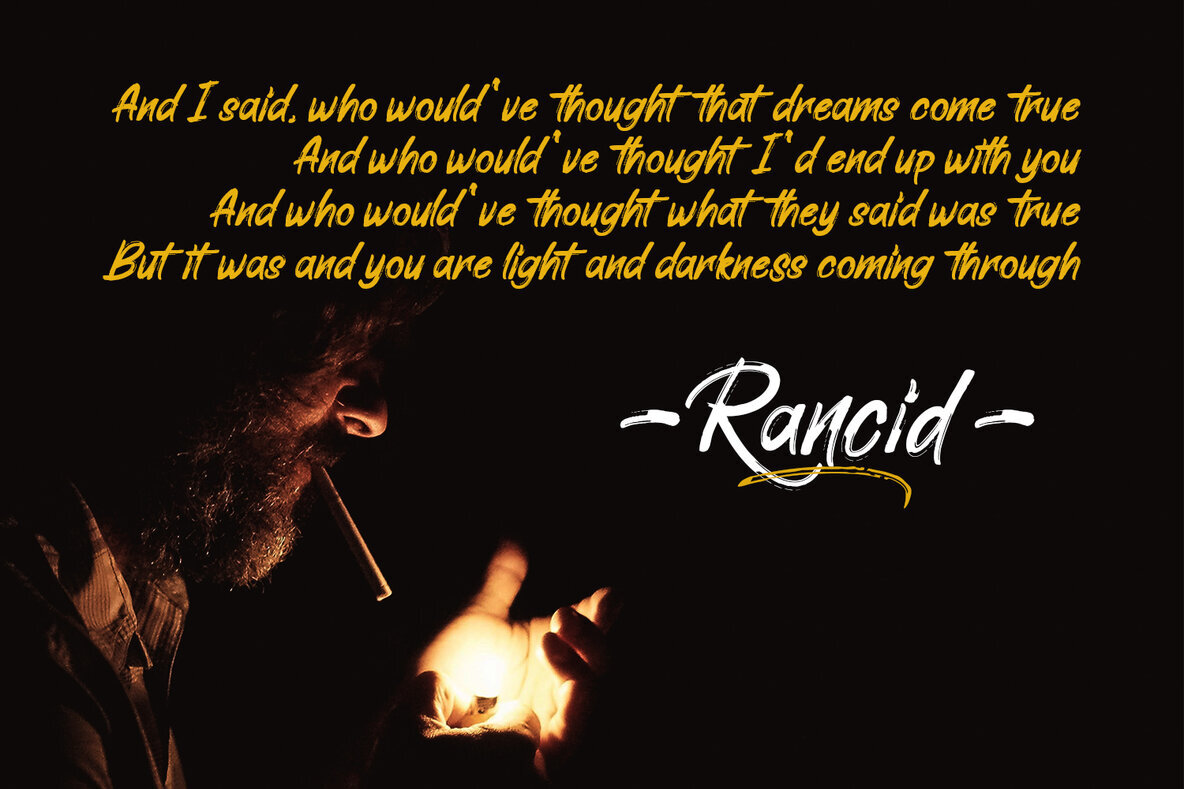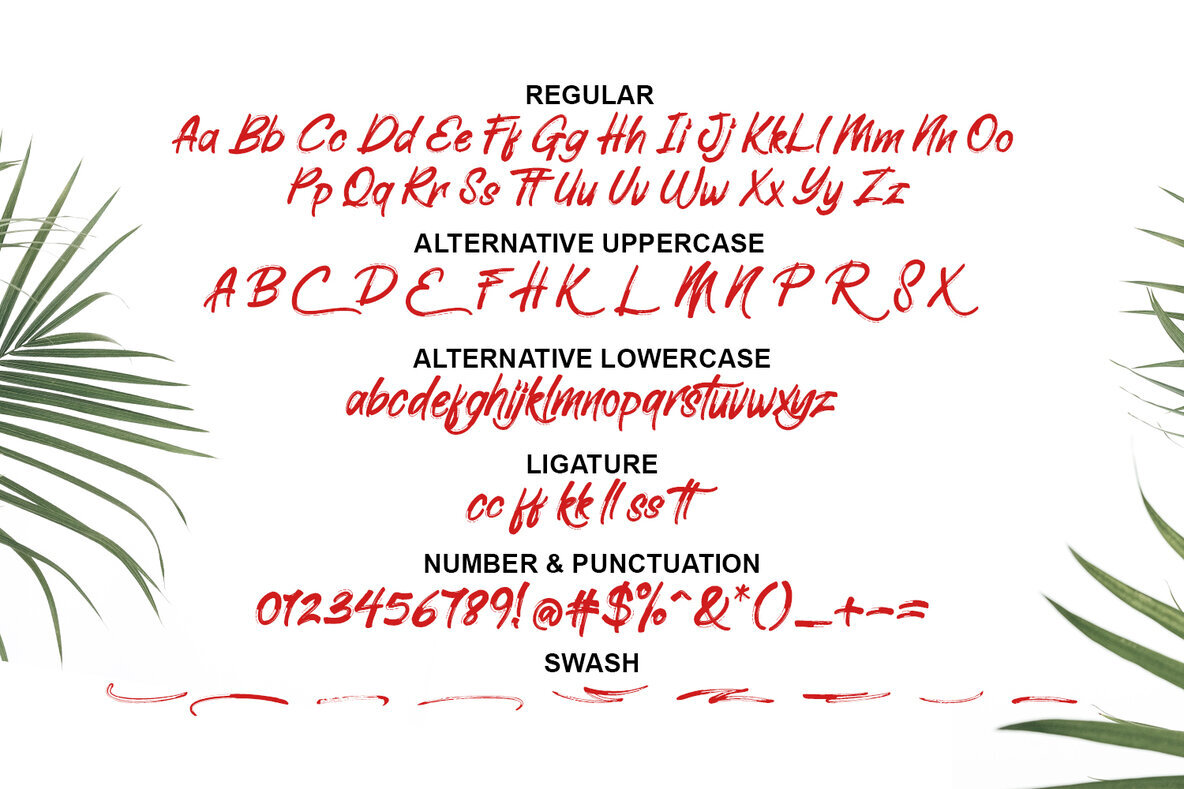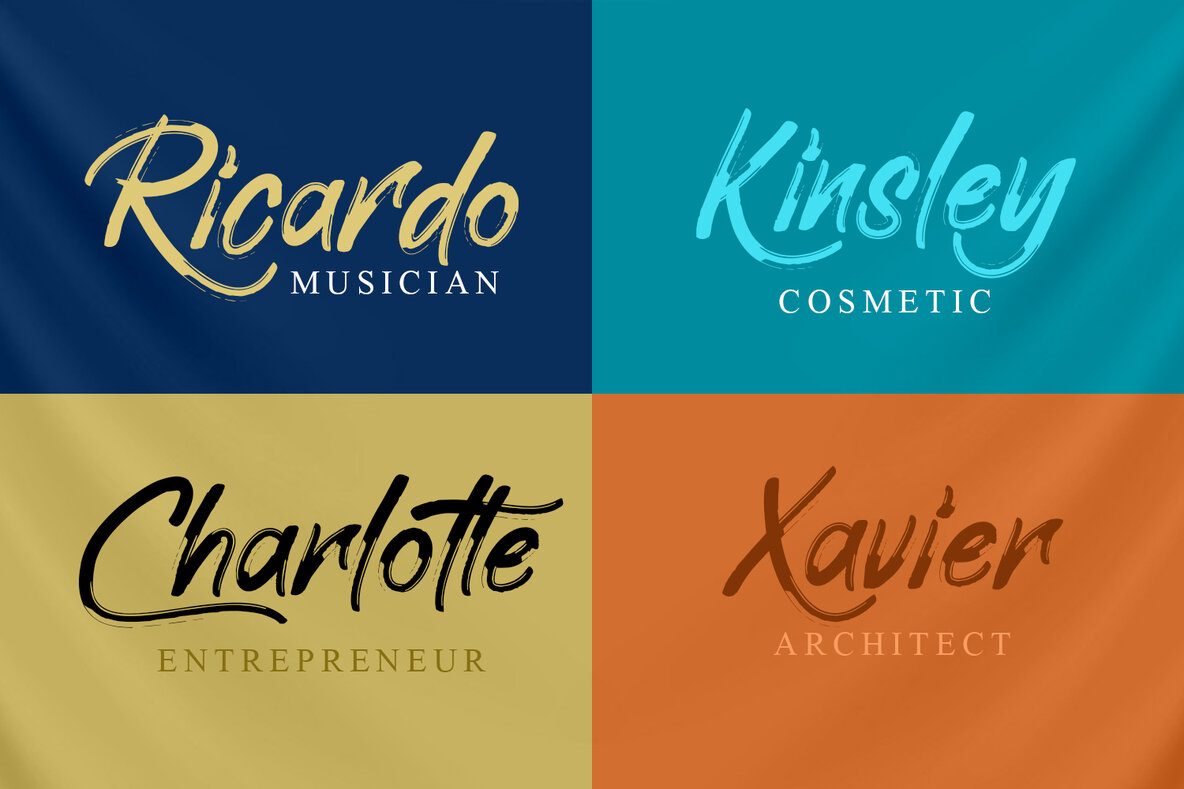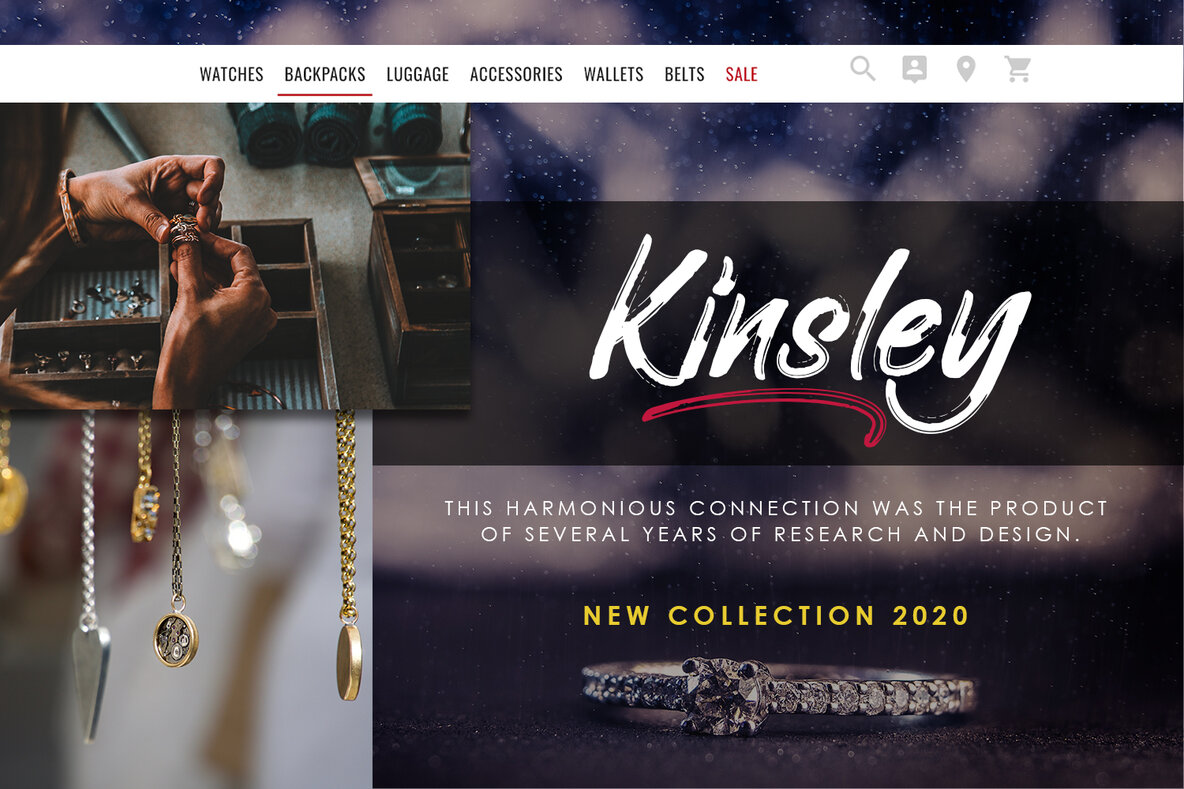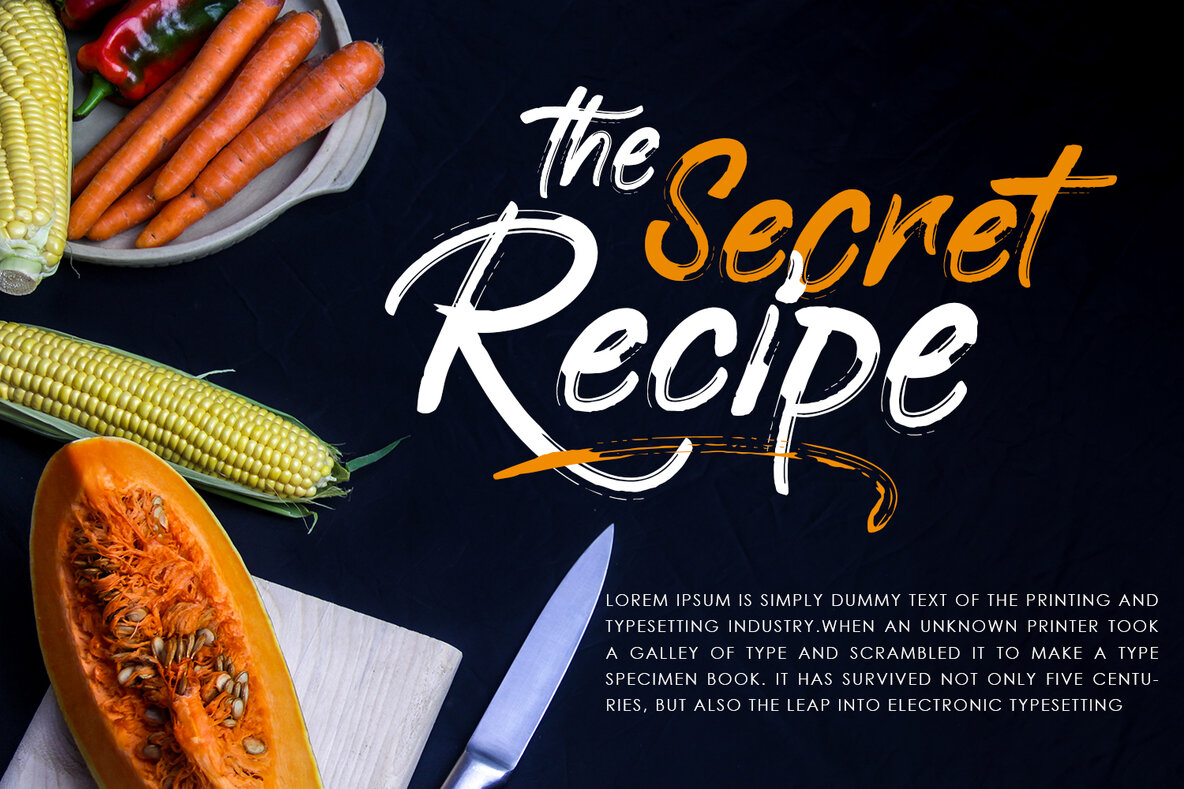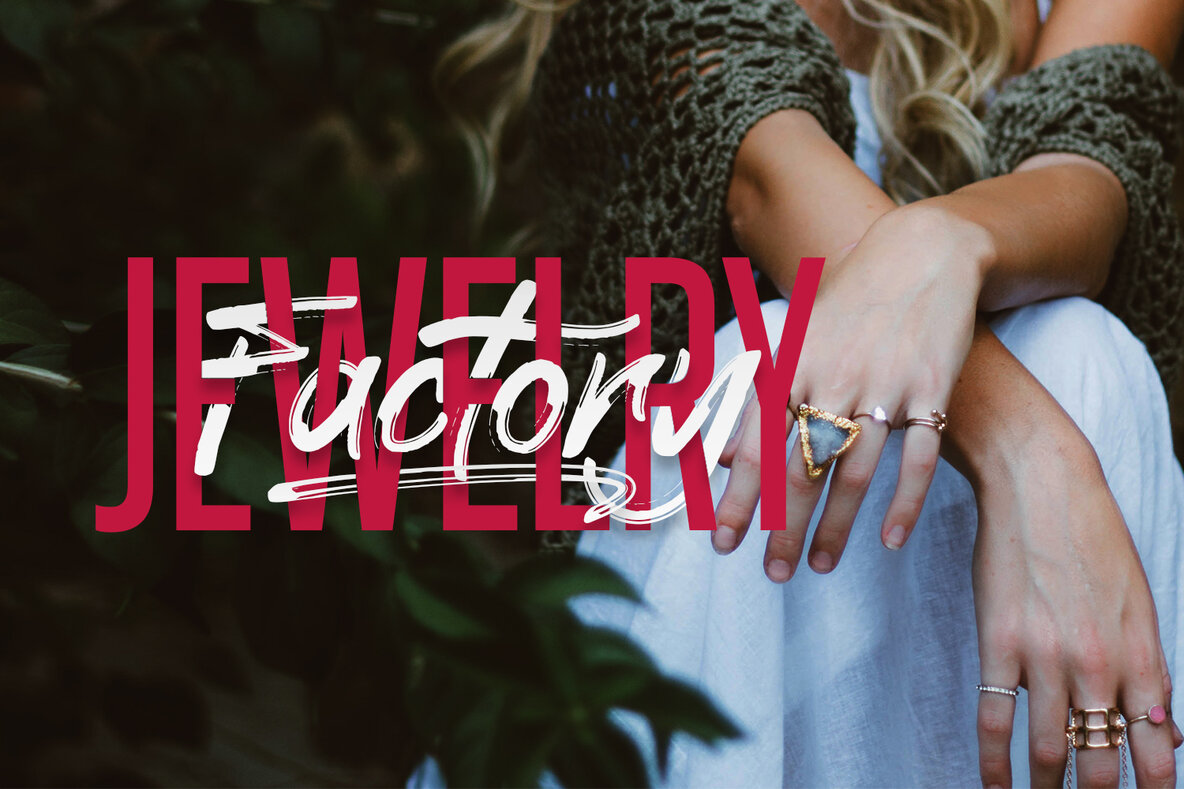
Elliot Brush Font
The Elliot Brush font is designed for those seeking to infuse their work with an expressive flair. This bold brush font adds a distinctive touch to various design projects, making it an excellent choice for creative professionals.Elliot Brush: Bold Stroke for Dynamic Designs